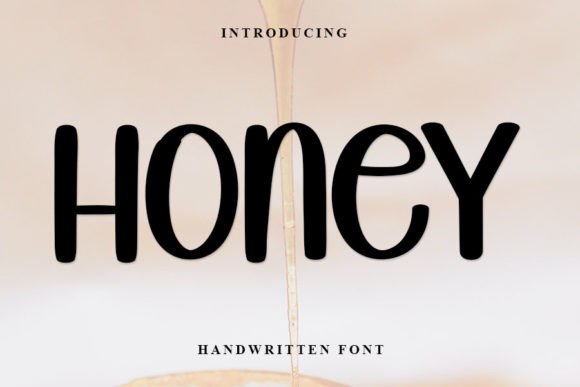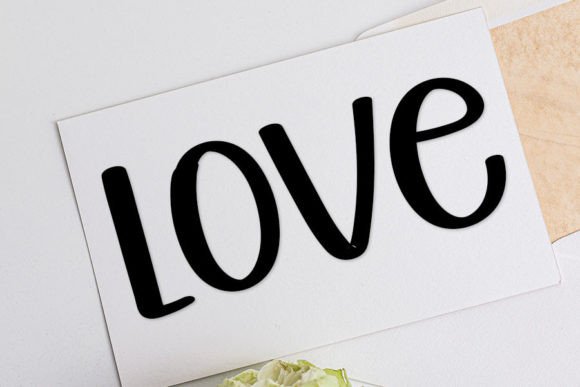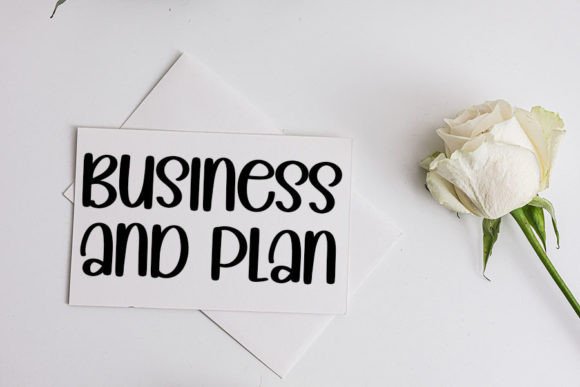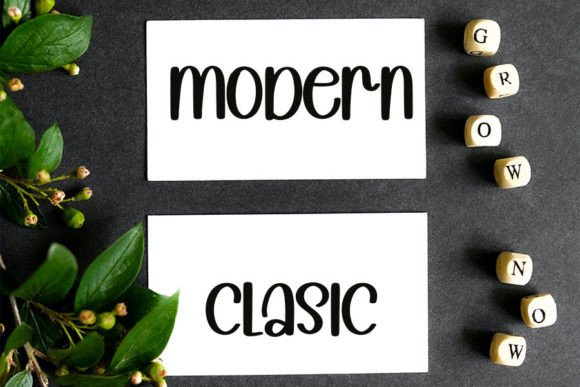
Honey Font
About Honey Font
Honey font is a warm and friendly handwritten typeface crafted to become a true favorite in your font collection. Its charming and approachable design adds a natural, personal touch to every creative project. Whether you’re designing logos, invitations, or branding materials, Honey font is ready to bring your ideas to life with style and elegance.
Warm and Inviting Design
This font features smooth, flowing strokes that capture the essence of authentic handwriting. Honeyfont’s balanced and legible characters make it perfect for projects that need a cozy, inviting look without sacrificing professionalism.
Why Download Honey Font?
Downloading Honeyfont unlocks a versatile tool suitable for a broad range of applications. It adapts beautifully to both digital and print projects, making it essential for designers, artists, and DIY enthusiasts who want to add a handcrafted feel to their work.
Perfect Uses for Honey Font
Honeyfont shines in various design contexts, including:
• Logo creation and branding
• Wedding invitations and greeting cards
• Social media graphics and promotional materials
• Packaging designs and product labels
• Personal projects like scrapbooking and journals
Its friendly and elegant style ensures your designs stand out with warmth and personality.
In summary, Honeyfont is a beautiful, friendly handwritten font that adds life and charm to any project. Download Honeyfont today and elevate your creative work with this.